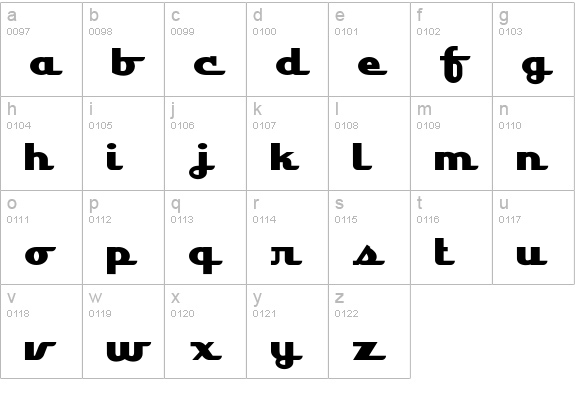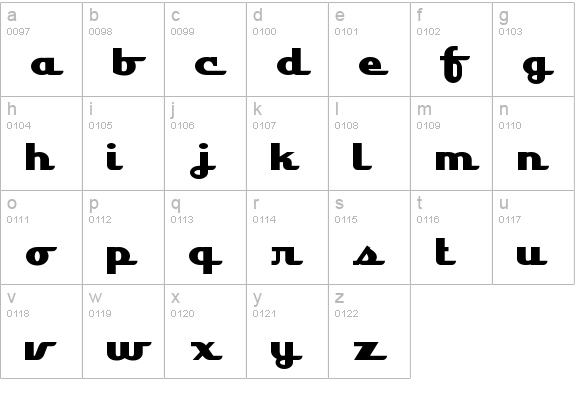
LakeshoreDrive Font Details
LakeshoreDrive font is a stunning display typeface that effortlessly captures the essence of modernity and sophistication. With its clean lines and elegant curves, this font is the perfect choice for any design project that requires a touch of contemporary style. What sets LakeshoreDrive font apart is not just its impeccable design, but also the fact that it is free to download. Yes, you heard that right - this remarkable font is freely available to all designers, creatives, and enthusiasts alike. Whether you're working on a branding project, creating eye-catching posters, or designing a captivating website, LakeshoreDrive font will elevate your work to new heights. Its versatility allows it to shine in both headlines and body text, making it a versatile choice for any typographic need. Downloading LakeshoreDrive font is incredibly easy. Simply head over to FontsMarket.com, where you can explore a vast library of fonts, including this gem. With just a few clicks, you'll have access to this beautiful typeface, ready to be incorporated into your designs. Don't miss out on the opportunity to enhance your creative projects with the elegance and charm of LakeshoreDrive font. Download it for free today at FontsMarket.com and let your imagination run wild with endless possibilities.